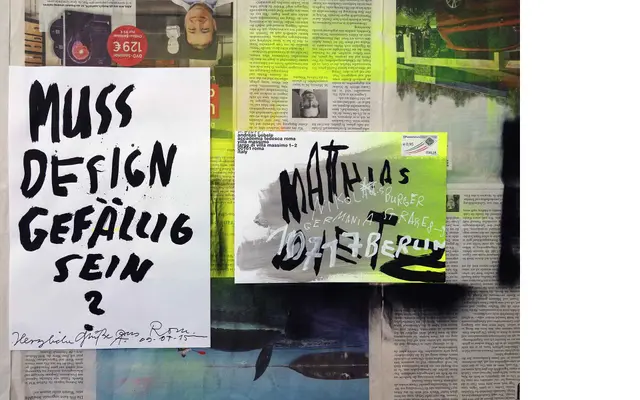
Massimo Grafia Mono
Nice To Type · Gabriel Richter and Andreas Uebele · 2018
A monospaced grotesque with handwritten roots, offering four weights and an extensive set of character alternates drawn from Andreas Uebele's handwritten correspondence at Villa Massimo in Rome.
Derived from handwritten letters by Andreas Uebele during a scholarship in Rome, Gabriel Richter expanded the idiosyncratic letterforms into a structured grotesque family with proportional, semi-mono and fully monospaced cuts. Each weight ships with at least five alternates per character for both upper and lowercase, alongside a full suite of figure styles, fractions and OpenType features. A variable font spanning weight and mono axes is included with purchase of the static family, alongside a leaner Plain version for faster web loading.
The family spans proportional grotesque, semi-mono and fully monospaced cuts, with the Mono subfamily representing a true fixed-width grotesque derived from handwritten letterforms.